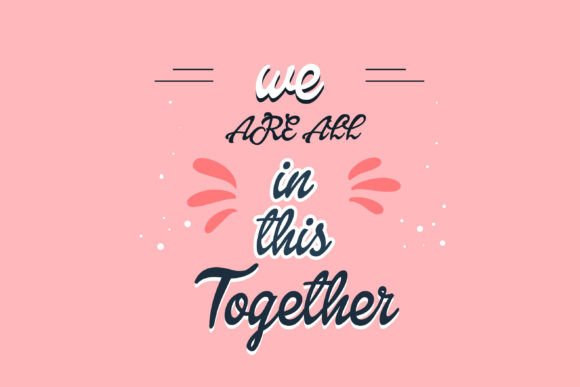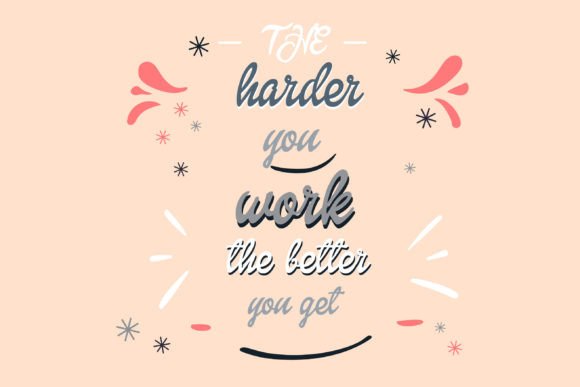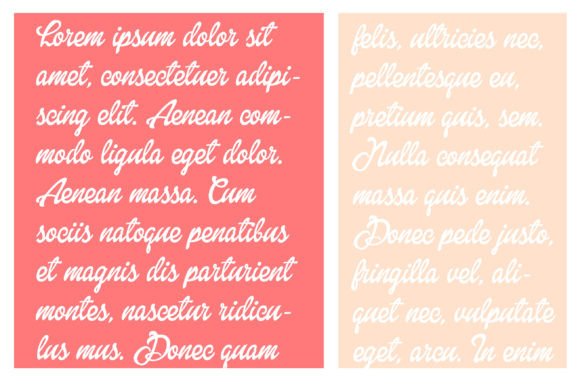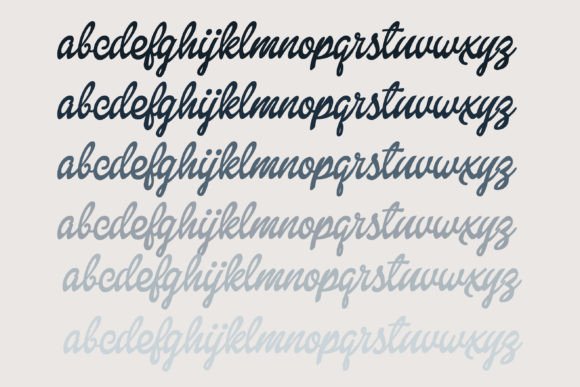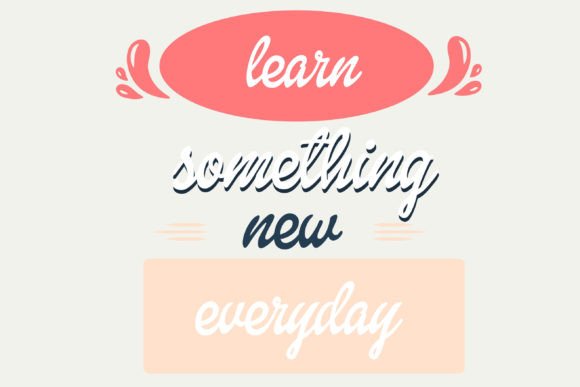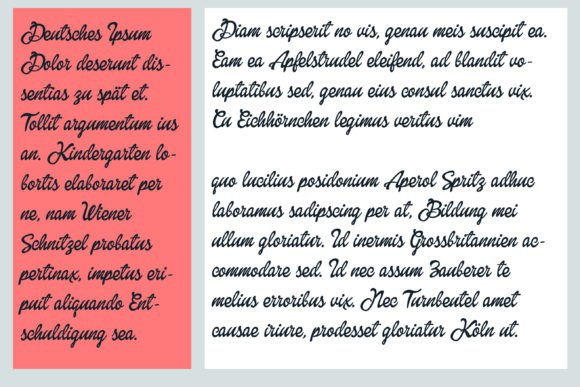
Discovering the Charm of Handwritten Scripts
As I sat at my desk, staring at a blank sheet of paper, I couldn’t help but think back to the countless handwritten letters and cards I received as a child. The way a person’s handwriting could evoke emotions and tell a story was truly magical. And that’s exactly what sparked my curiosity about handwritten scripts like Barbara Ann Font.
Barbara Ann Font is a beautiful, cursive script designed to mimic the elegance of handwritten letters. Its formal uppercase style makes it perfect for invitations, greeting cards, and other special occasions. What I find truly valuable about this font is its ability to add a personal touch to any design. Whether you’re a seasoned designer or just starting out, incorporating handwritten elements like Barbara Ann Font can elevate your work and make it truly unique.
With its warm and inviting feel, Barbara Ann Font is a must-have for any designer looking to add a touch of personality to their projects.
Barbara Ann Font Key Features
- Unique Characteristics: This font features a unique blend of classic and modern elements, with elegant lines, subtle curves, and a touch of vintage flair, making it perfect for designs that require a timeless and sophisticated look.
- Kerning and Ligatures: The font includes advanced kerning and ligature features, ensuring that text is displayed with precision and elegance, even at small font sizes.
Designer Review: Barbara Ann Font
I recently had the chance to work with Barbara Ann Font, and here’s my honest take on it.
- Unique aesthetic: Barbara Ann Font has a distinct, quirky feel that sets it apart from more common fonts.
- High legibility: Despite its playful nature, the font is surprisingly easy to read, even at smaller sizes.
- Good for creative projects: Its whimsical style makes it perfect for designing creative projects, like children’s books or advertisements.
- Limited versatility: While Barbara Ann Font is great for creative projects, it may not be the best choice for more formal or professional designs.
- May not be suitable for body text: Due to its unique style, Barbara Ann Font may not be the best choice for large blocks of text, like articles or essays.
Overall, I think Barbara Ann Font is a great addition to any designer’s toolkit. Its unique style and high legibility make it perfect for creative projects, and its limitations are easy to work around. If you’re looking for a font that adds a bit of personality to your designs, Barbara Ann Font is definitely worth checking out.
Barbara Ann Font is a versatile and elegant font suitable for a variety of projects, including:
- Formal event invitations and announcements.
- High-end branding and marketing materials.
For best results, use Barbara Ann Font in conjunction with high-quality images and graphics to create a sophisticated and polished look.
Alternatives to Barbara Ann Font
Playfair Display is a luxurious, high-end serif font ideal for formal invitations, magazine covers, and high-end branding. It features elegant lines and ornaments that evoke a sense of sophistication and refinement.
Compared to Barbara Ann, Playfair Display is more formal and elegant, with a more refined and luxurious feel. It’s perfect for designers looking to create a high-end or vintage look.
Carolyna Pro is a modern, elegant script font perfect for wedding invitations, luxury branding, and high-end packaging. It features flowing lines and a soft, feminine touch.